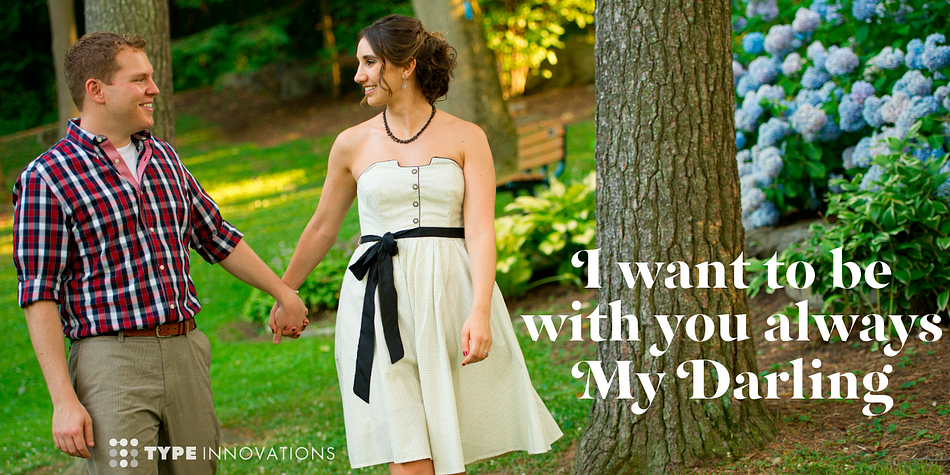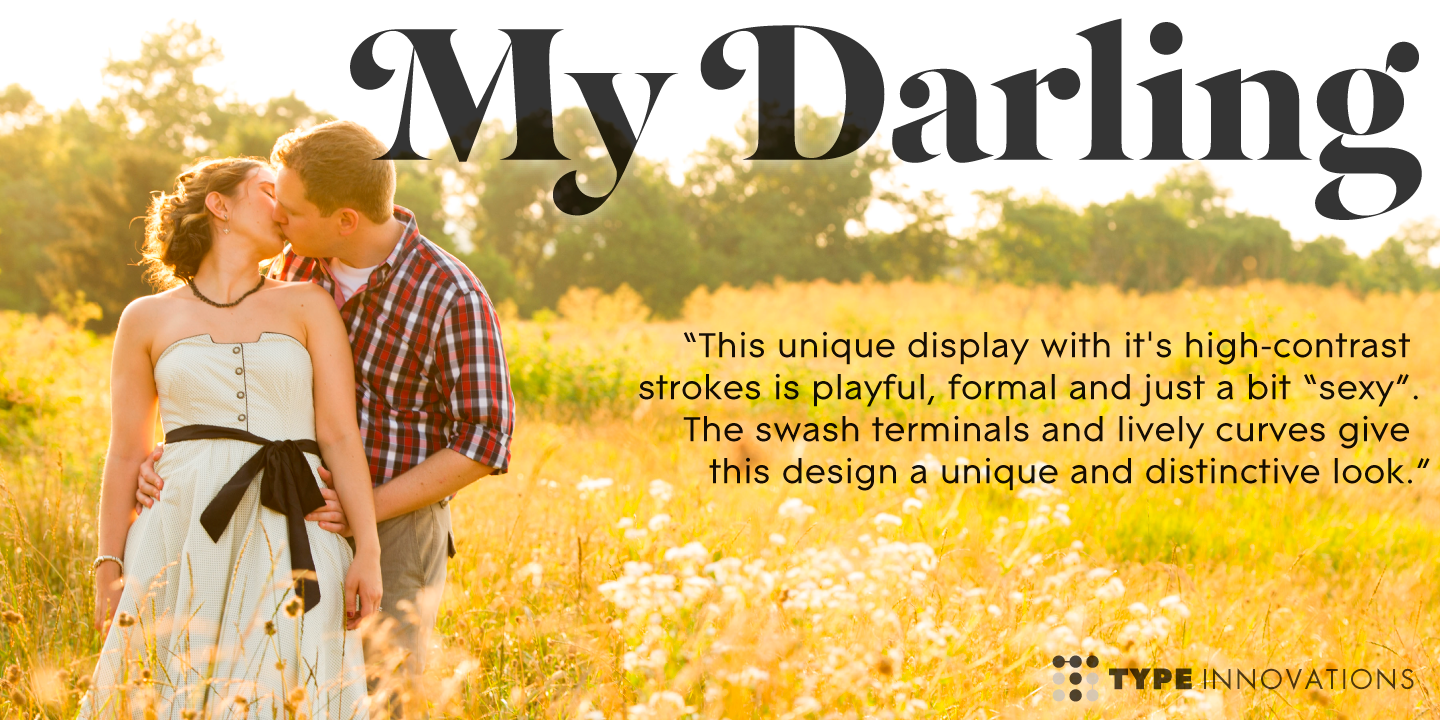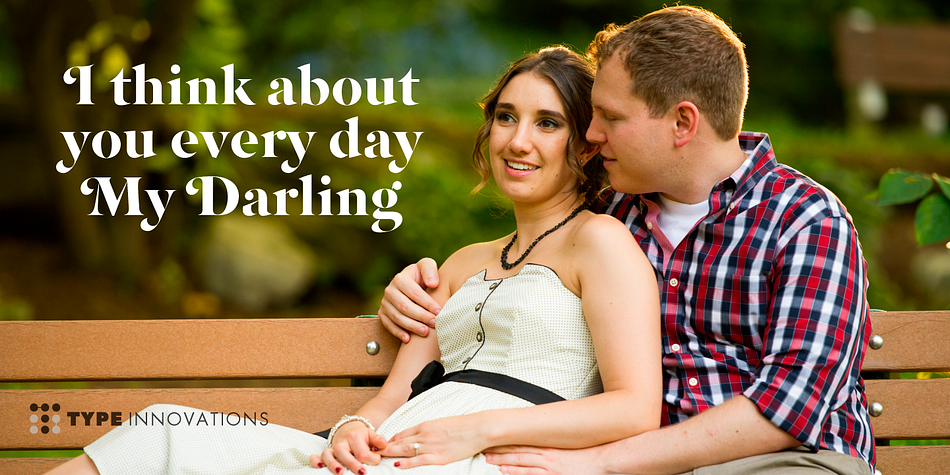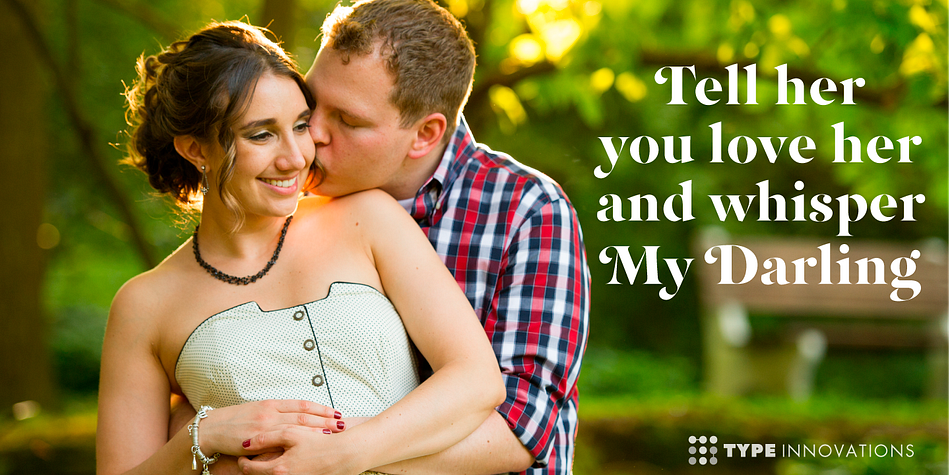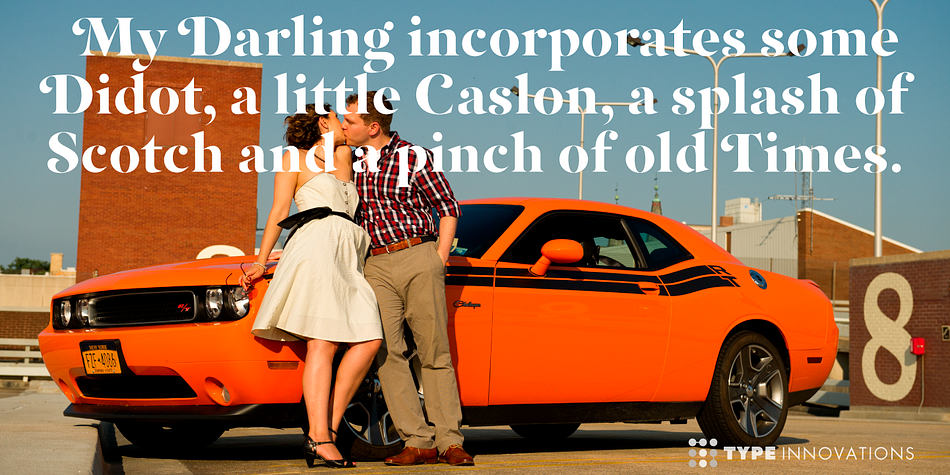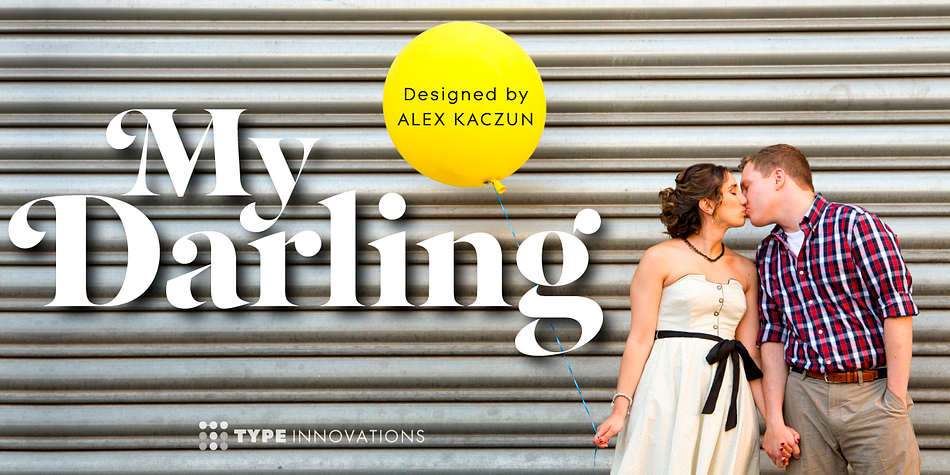
My Darling is a display serif font published by Type Innovations.
‘My Darling’ is a stunning new typeface by Alex Kaczun. Inspired by the Didone shapes, ‘My Darling’ incorporates some Didot, a little Caslon, a splash of Scotch and a pinch of old Times. This unique display, with it’s high-contrast strokes is playful, formal and just a bit ‘sexy’. The swash capital terminals and lively curves, give this design a unique and distinctive look.
It works well as a headline font, and because it was designed with generous counters, proportions and spacing—works equally well over a large range of text point sizes.
My Darlings’ character set supports most Central European and many Eastern European languages. Alex hopes to add many style variations, along with alternate glyph sets and weights to further enhance this offering. Stay tuned!